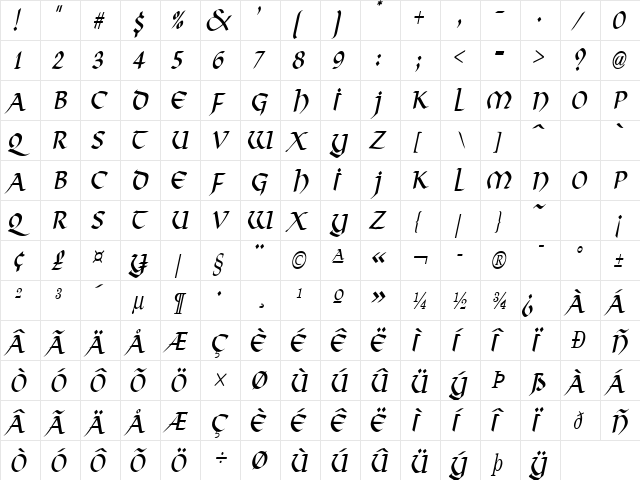
Valhalla Condensed Italic
Design Context for Valhalla Condensed Typeface
Valhalla Condensed is a composed and adaptable typeface that performs quietly and consistently across a wide range of design contexts. The dynamic lean of this cut emphasises speed and emphasis in any layout. Its narrow stance lets it pack a punch even in space-constrained designs.